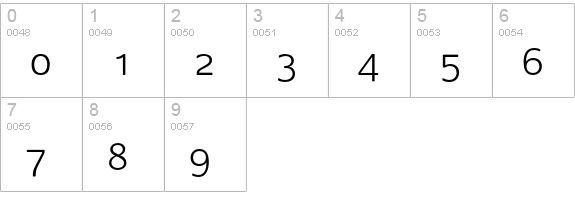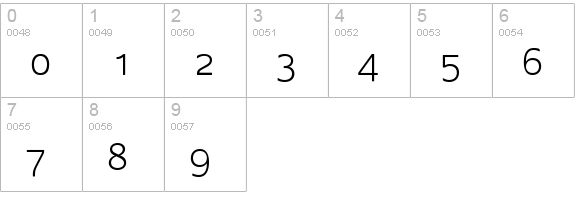
PraxisEF-LightSC Font Details
PraxisEF-LightSC is a modern and elegant sans-serif font that exudes sophistication and professionalism. With its clean lines and subtle curves, this font is perfect for a wide range of design projects, from logos to websites to printed materials. The light weight of the font adds a touch of delicacy and refinement, making it versatile for both digital and print applications. What sets PraxisEF-LightSC apart is that it is available for free download at FontsMarket.com. This means that you can easily access and use this high-quality font without any cost, making it an excellent choice for designers on a budget or anyone looking to add a touch of style to their projects without breaking the bank. Whether you're working on a branding project, creating promotional materials, or designing a website, PraxisEF-LightSC is a versatile and elegant font that will elevate your design to the next level. Download it for free today and see how it can enhance your creative projects.